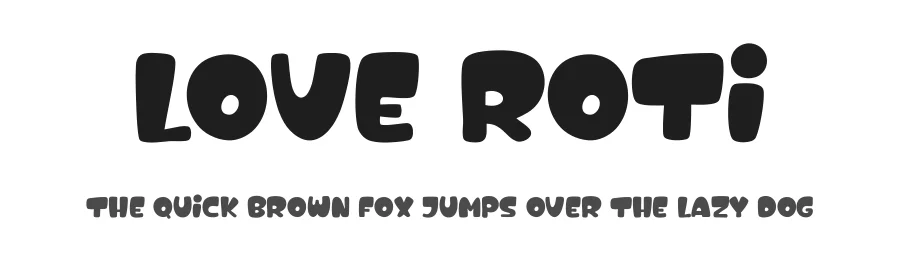
About Hyto Font
Hyto is a decorative font designed by Dimitris Anasto. It includes 201 glyphs, a regular weight, TTF (TrueType) format, and 104 languages. Hyto is free to download; check the license details on this page before commercial use. Decorative fonts like Hyto work best for logos, posters, packaging, and standout headlines.
Hyto Font is a decorative font that shines as a display or heading face. Pair it with a clean sans-serif or serif font for body text β the contrast creates a clear hierarchy while the two styles stay balanced and easy to read.
Hyto Font